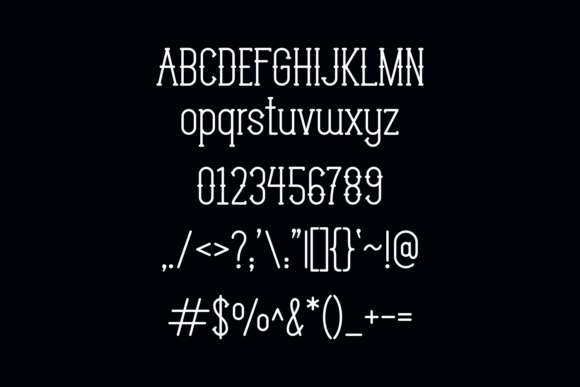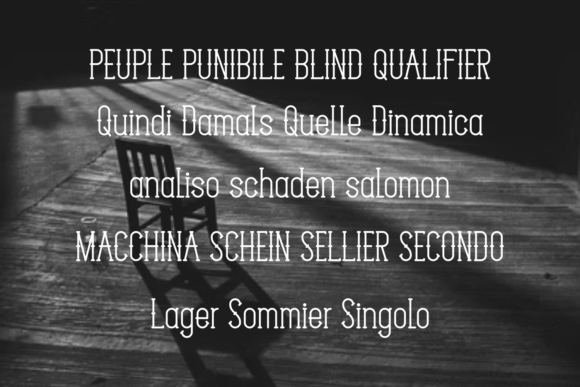
Introduction to Muback Font
You know that moment when you’re working on a creative project, and you need just the right font to bring it all together? For designers, finding the perfect font can be a game-changer. It’s like stumbling upon the perfect color palette or the ideal image to set the tone for your entire design. That’s exactly what happened when we discovered the Muback Font – a cool and unique serif font that’s about to become your new go-to.
With its high-quality design and transparent background, the Muback Font is a valuable resource for any creative project. Whether you’re designing a logo, creating a brochure, or working on a website, this font has the potential to elevate your work to the next level. And the best part? It’s available for a free download, making it an accessible design resource for designers of all levels.
As a design enthusiast, you know that having the right tools can make all the difference. The Muback Font is a must-have for anyone looking to add a touch of sophistication and elegance to their work. So, what are you waiting for? Get ready to take your designs to new heights with the Muback Font.
Key Features of Muback Font
- High-quality design: Muback Font is designed to provide a premium look and feel for your creative projects, making it an ideal design resource.
- Transparent background: This font features a transparent background, allowing you to easily layer it over any image or design element.
- High-resolution design: With a resolution of 300 DPI, Muback Font is suitable for use in high-quality print projects, such as business cards, brochures, and posters.
- Unique characteristics: The font’s distinctive design elements, such as its bold lines and geometric shapes, make it a standout choice for designers looking to add some creativity to their projects.
Honest Review: Muback Font
I recently had the chance to work with the Muback Font and I must say it’s been a game-changer for my creative projects. The high quality design is top-notch and the free download was a welcome bonus.
Here are some of the things that work well with the Muback Font:
- ✨ Unique and modern design that’s perfect for creative projects
- ✨ Transparent background makes it easy to customize and combine with other design elements
- ✨ High quality design that’s perfect for print and digital projects
- ⚠️ Limited font styles and weights, which may not be suitable for complex design projects
- ⚠️ Some users may find the font size and spacing a bit inconsistent
Overall, I’m really impressed with the Muback Font. It’s a great design resource that’s perfect for simple to moderate design projects. While it may not be suitable for complex projects, it’s definitely worth considering for your next creative project.
Tips for Getting the Most Out of Muback Font
For optimal results, experiment with different font sizes, colors, and combinations to create unique and eye-catching designs. The transparent background of the Muback Font allows for seamless integration with other design elements.
The Muback Font is perfect for creative projects such as posters, flyers, and business cards. Its high-quality design and transparent background make it an ideal choice for designers seeking a versatile and effective design resource.